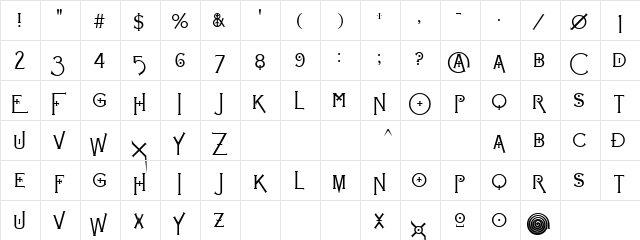
Brahn Mufun Regular Font Preview
Brahn Mufun Regular
Design Context for Brahn Mufun Typeface
Brahn Mufun has an approachable, lighthearted character — its loose, expressive forms are well-suited to children's content, casual branding, and fun-first design.
Font Pairing: Pairs well with a rounded or humanist sans for body copy, maintaining the friendly tone without relying on Brahn Mufun to carry extended reading.
Pro Tip: Avoid using Brahn Mufun for long passages of text — it works best for headlines, labels, and short calls to action.